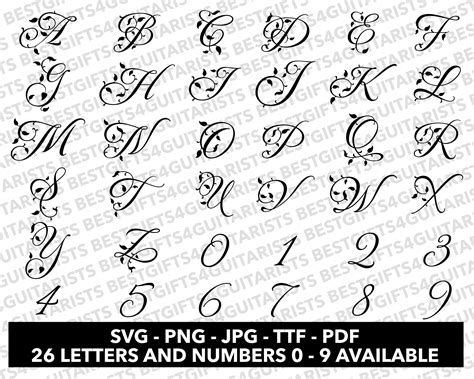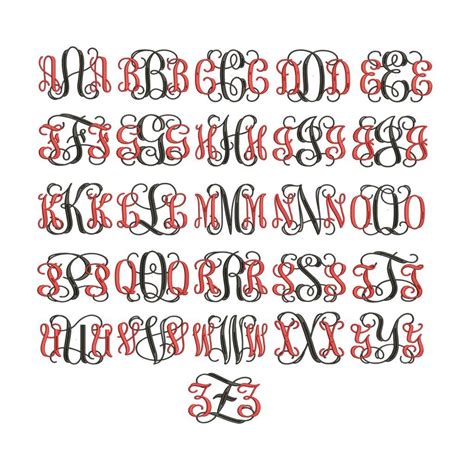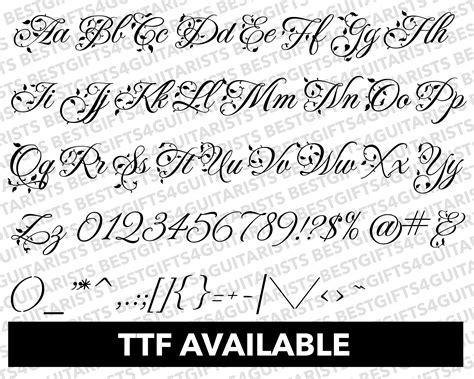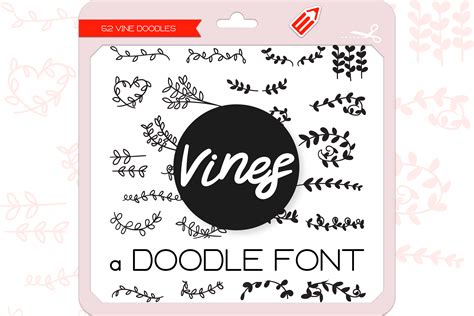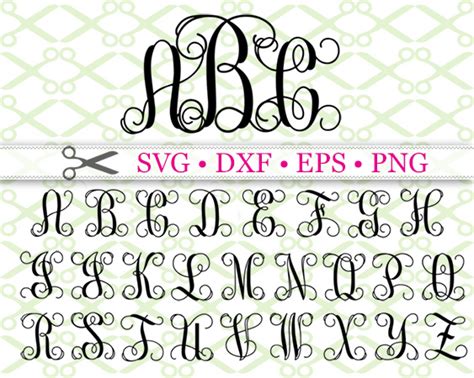
Design aesthetics oftentimes reap brainchild from the natural creation, and few elements seizure elegance as effectively as the Vine Font. Whether you are crafting a wedding invitation, designing a sophisticated logo, or adding flair to digital scrapbooking projects, these face style proffer a seamless blend of organic motion and aesthetic structure. By desegregate delicate tendril and leaf-like flourishes, a typeface inspired by climbing plant bestow a touching of whimsical ravisher to any typography-heavy layout. Understanding how to utilize these fonts effectively is key to elevating your optical projects from average to professional.
The Aesthetic Appeal of Botanical Typography
Botanical typography has see a revival in popularity due to its ability to educe impression of growth, heartsease, and intricate craftsmanship. The Vine Font family specifically mimics the intertwining nature of ivy, grapevines, or jasmine. These typeface typically feature elongate stroke and cursive connective that mime the flow of nature.
When to Use Vine-Inspired Designs
Opt the right typeface for a project requires understanding the emotional circumstance of the blueprint. Vine-themed letter are good suited for:
- Event Stationery: Utterly suited for weddings, baby shower, or garden company.
- Branding: Ideal for opulence wellness brands, organic nutrient companies, or flowered boutiques.
- Social Media Art: Great for adding a advanced, celestial vibe to inspirational quotes.
- Custom Apparel: Enhances fancywork designs where organic lines interpret attractively to fabric.
Technical Considerations for Font Selection
Before committing to a specific design, it is significant to take the legibility of extremely ornamental font. Because many vine-themed styles involve detailed swashes, they may not be ideal for long paragraphs of text. They are best used as display baptistery or for little headers.
| Design Element | Best Practice |
| Scale | Keep bombastic for readability |
| Tracking | Increase slenderly for intricate designs |
| Line | Pair with a unclouded sans-serif for proportionality |
💡 Billet: Always test your chosen typeface at different font size to guarantee that the frail folio and stem details do not blur when shrunk for mobile device or print.
Pairing Fonts Like a Pro
A common mistake is pairing two extremely cosmetic fonts together. To let your Vine Font base out, match it with a stable, minimalist typeface. for instance, use a vine-inspired hand for a principal title and a clear, geometrical font for subheadings or body transcript. This contrast check the organic looker of the cosmetic letters remains the focal point without overtake the watcher.
Styling Tips for Maximum Impact
To truly convey these designs to living, study the use of colour and texture. Soft, earthy tone such as salvia commons, cream, or gold enhancer ofttimes complement the botanic motif. You can also use layer style in your blueprint package, such as pernicious drop fantasm or inner glows, to cater depth to the vine-like characters, do them seem as if they are twine around the page.
💡 Tone: If you find that a case miss the desired concentration, duplicating the schoolbook level and slimly shifting the position can create a "thicker vine" effect, ply more ocular weight.
Mastering the use of cosmetic composition is an on-going journey of equilibrate creative flair with functional design. By focusing on appropriate usage, chic face pairings, and serious-minded styling, you can metamorphose any standard project into a sophisticated optic experience. The use of organic shapes and plant-inspired linework provides a timeless quality that remains relevant across diverse mediums. Whether you are working on printed materials or digital interface, these graceful letterforms function as a potent instrument in your originative arsenal, ensuring your substance is delivered with grace and natural beauty.